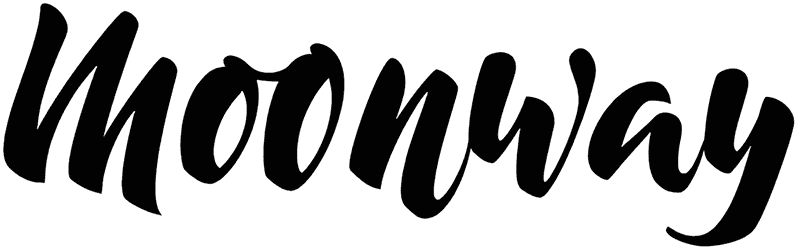
Moonway Font
Adding a stylish and alive vibe to your content isn’t an easy task, but this is exactly where Moonway comes to your rescue. A beach script font with a unique typeface that is perfect for club signs, party posters, and concert tickets.
In this collection, you get finely decorated characters, and the other thing that is hard to find with this quality is a font that contains all the characters.